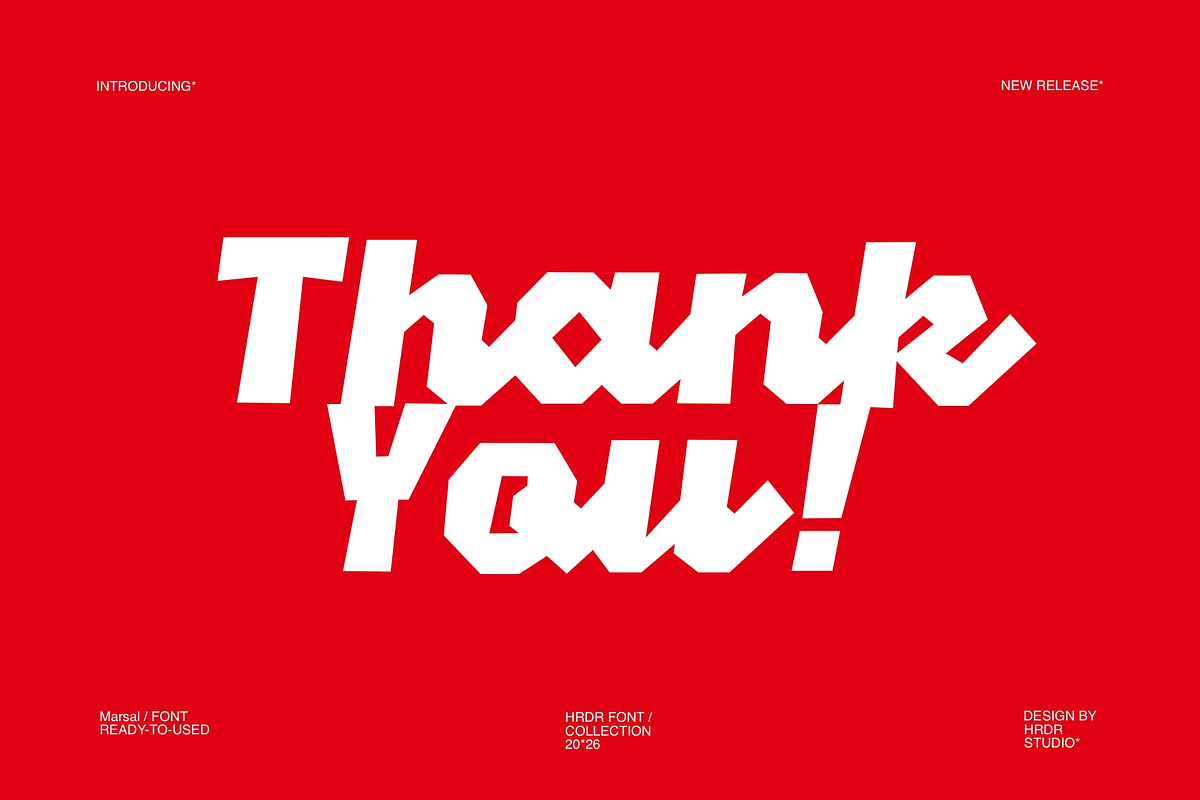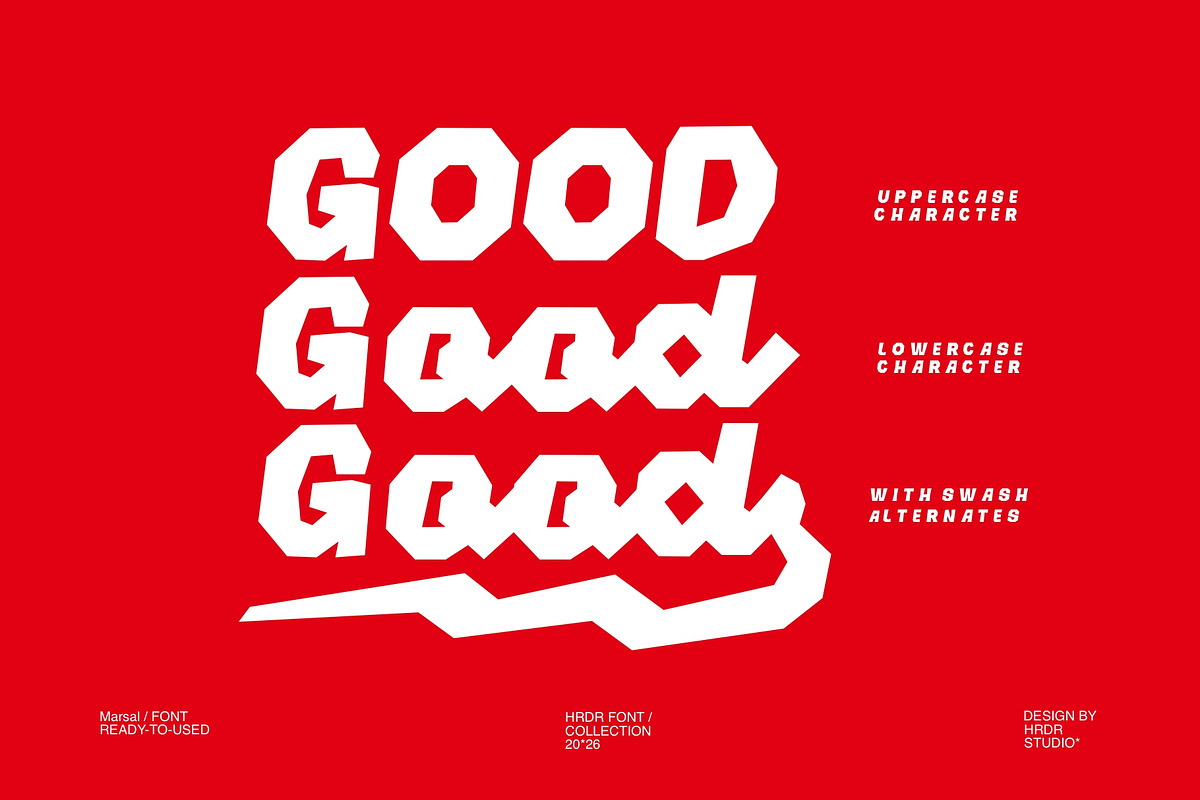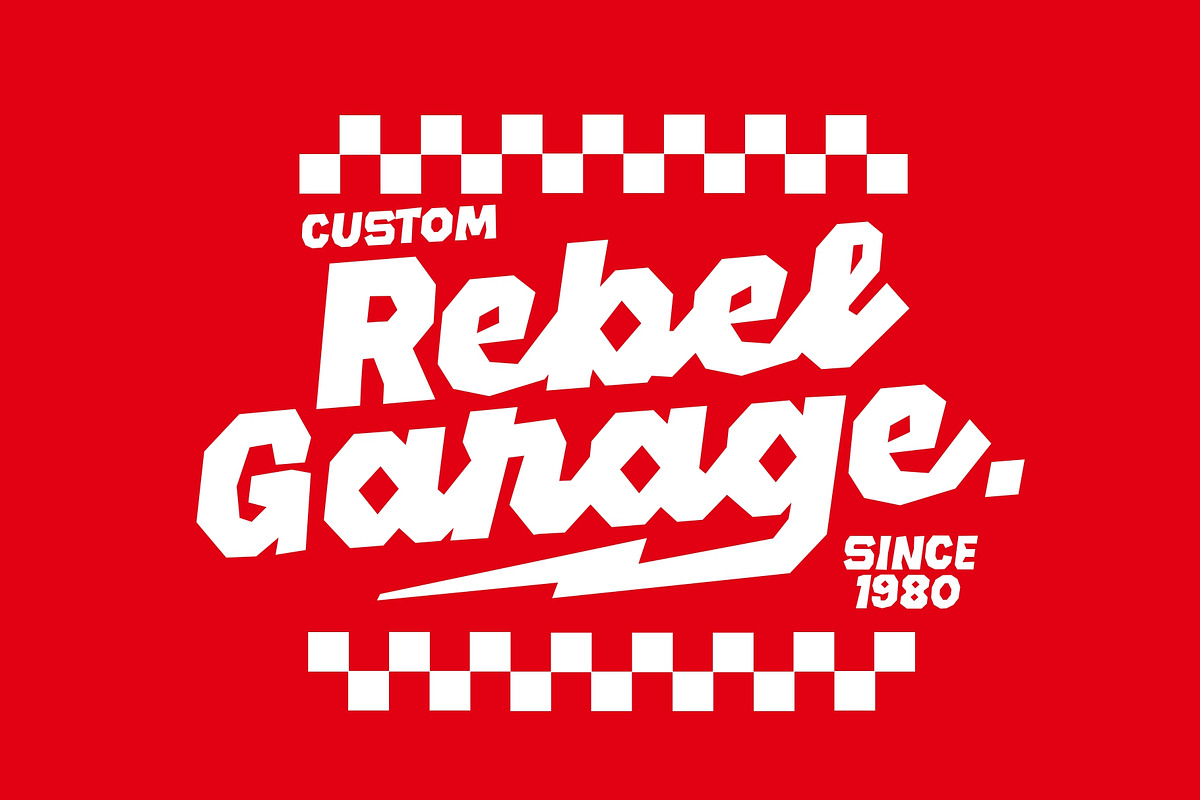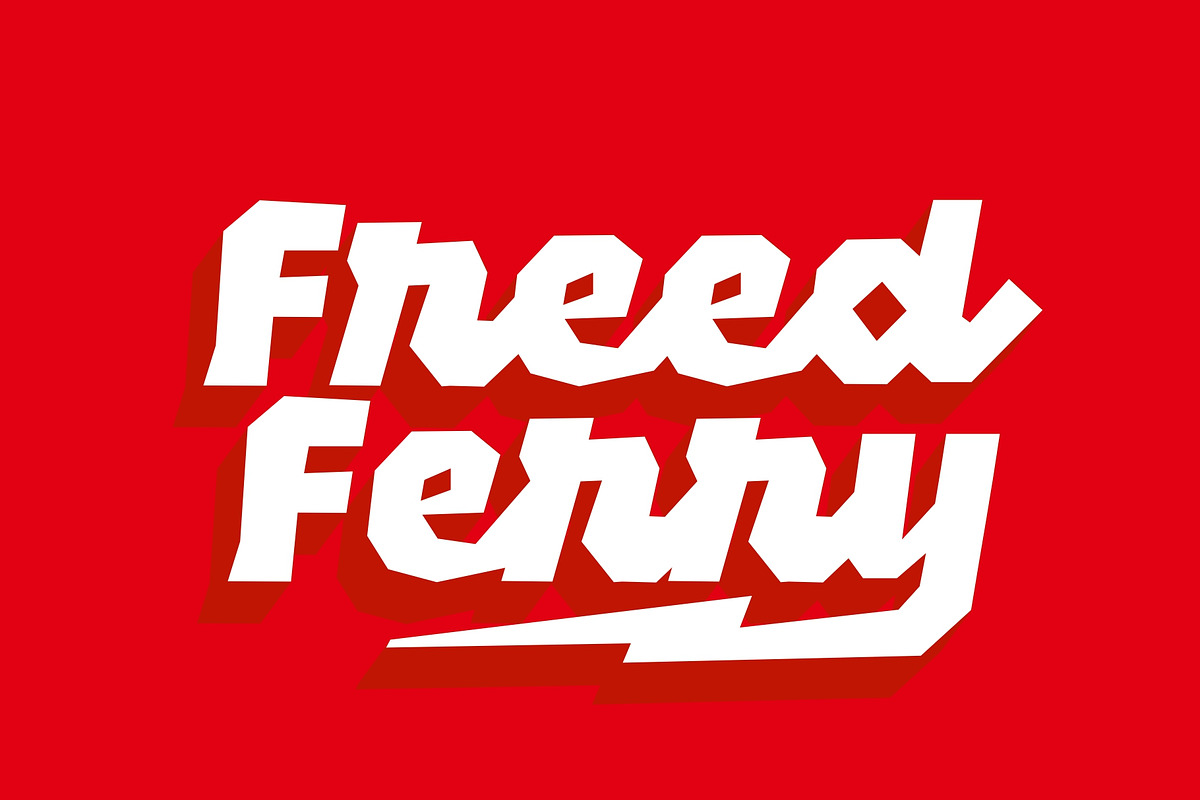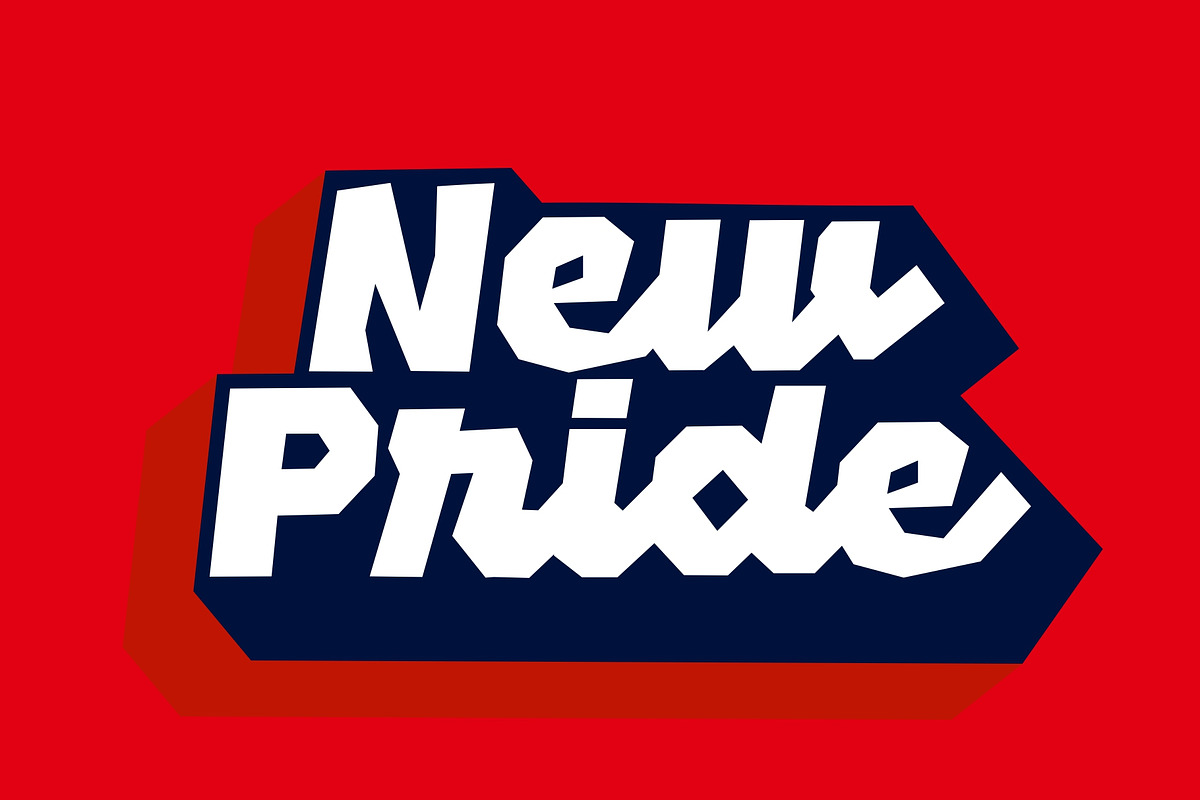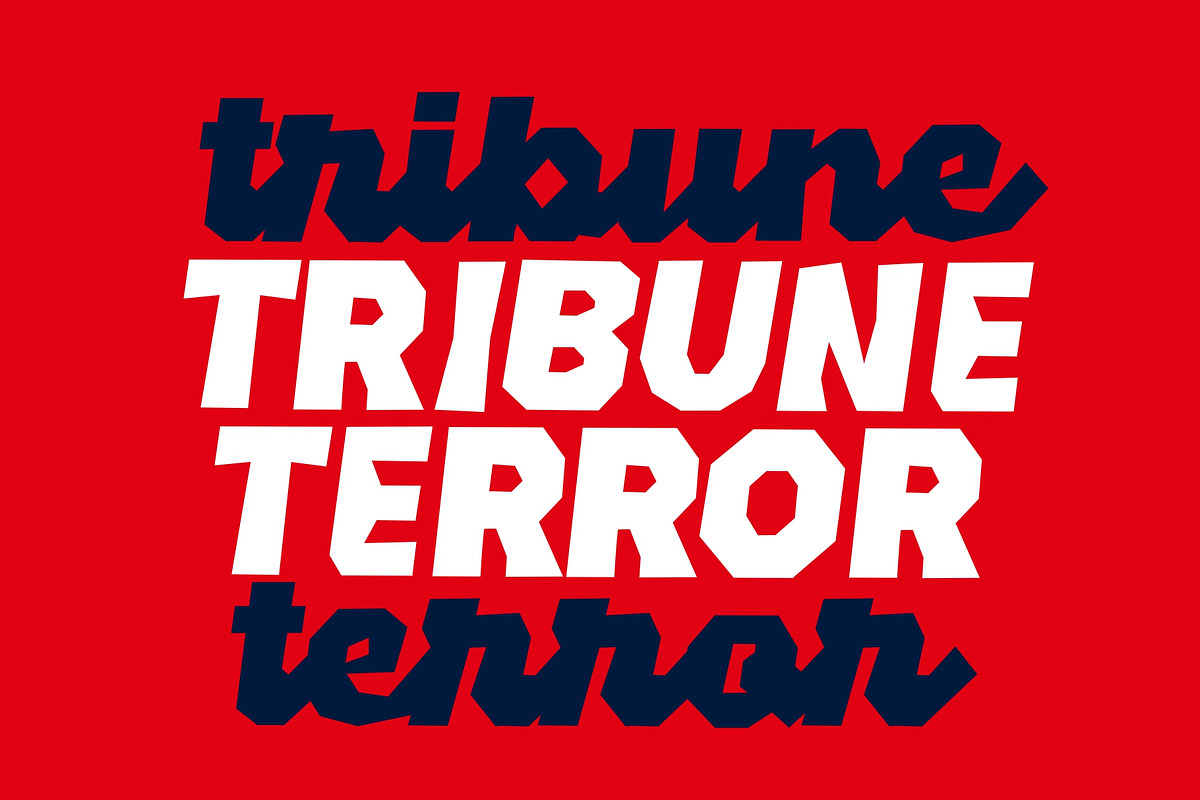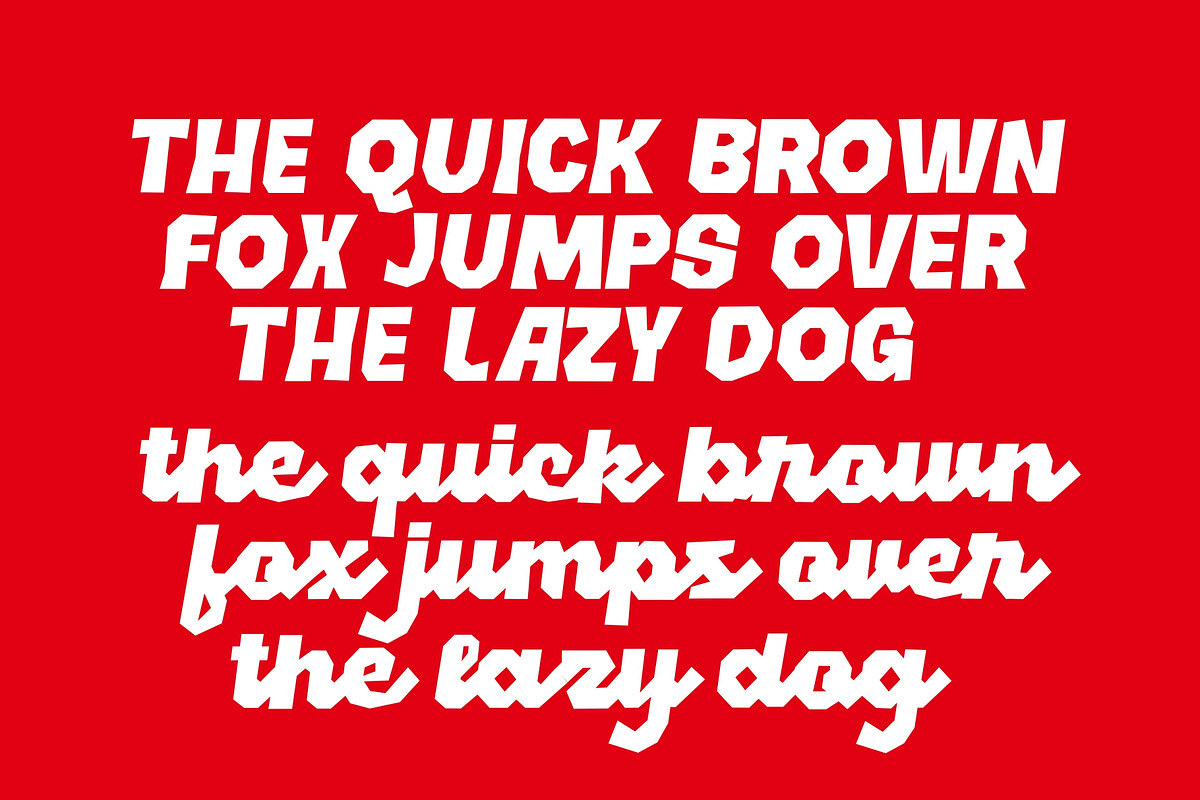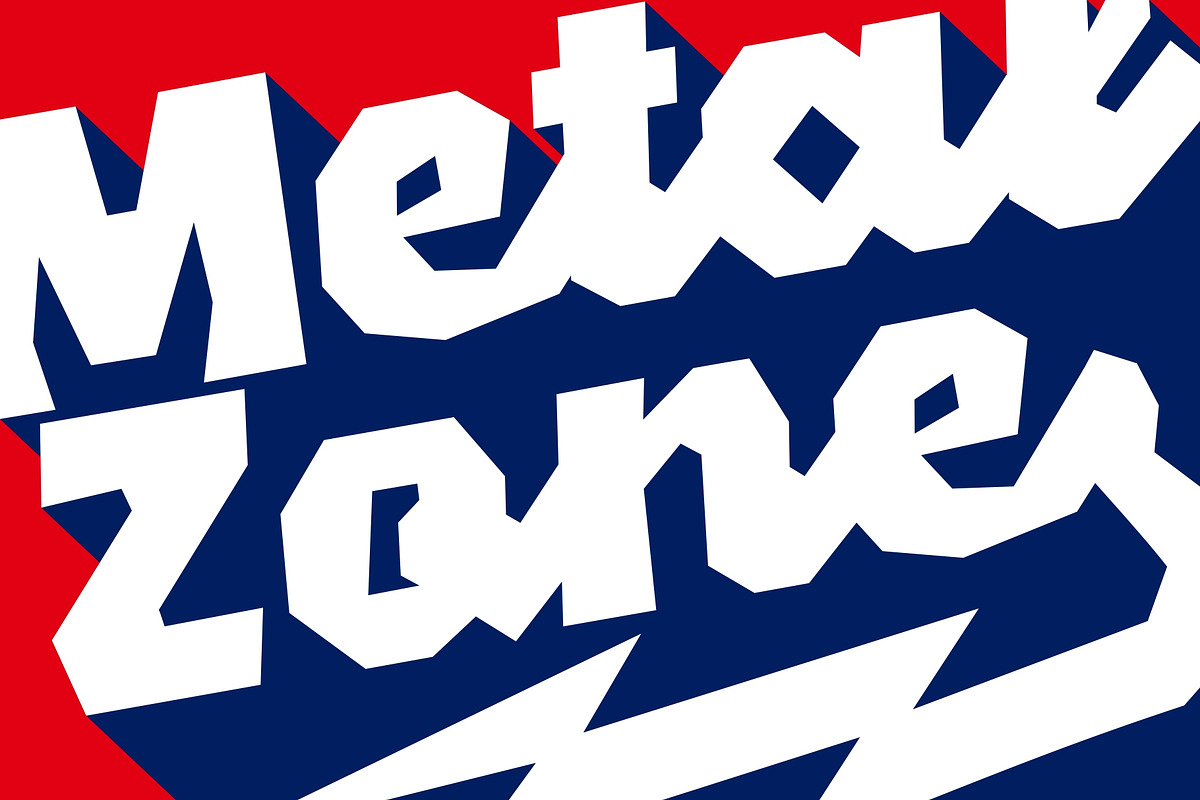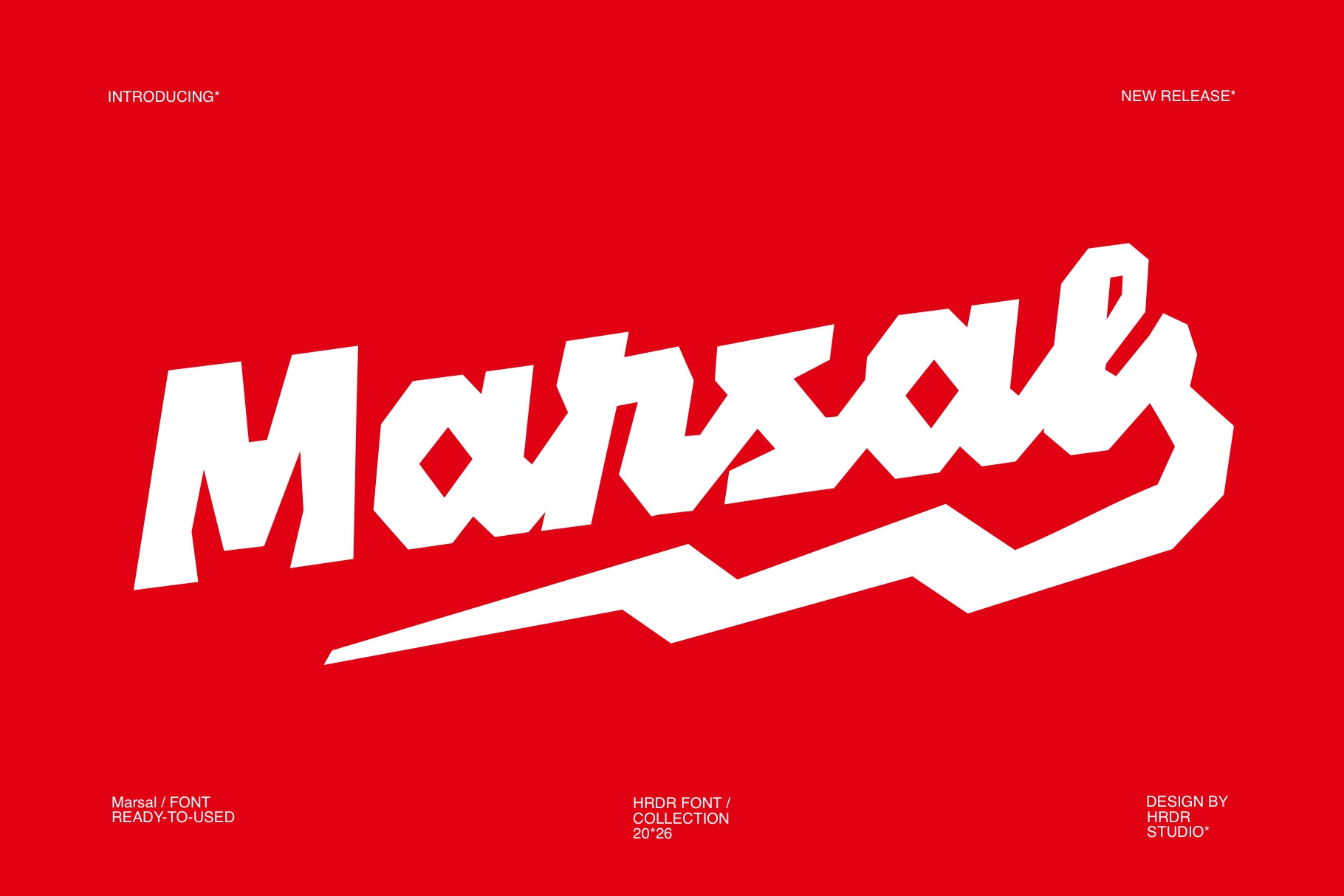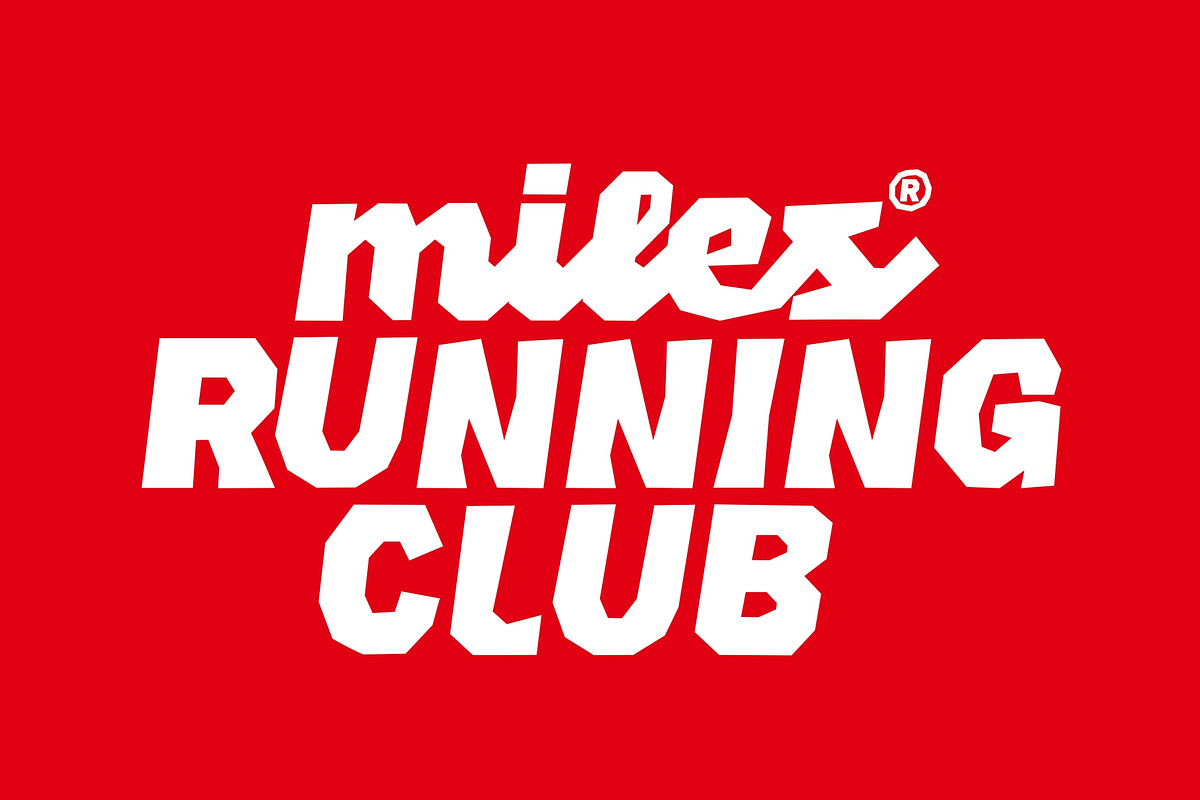
Marsal - Retro Logo Font
Marsal is a elegant and decorative script font inspired by retro style. is perfect for any retro project, poster, logo, label, clothing, music album cover, and many others.
Stylistic Alternates with ( Ss01, Ss02 and Ligatures )